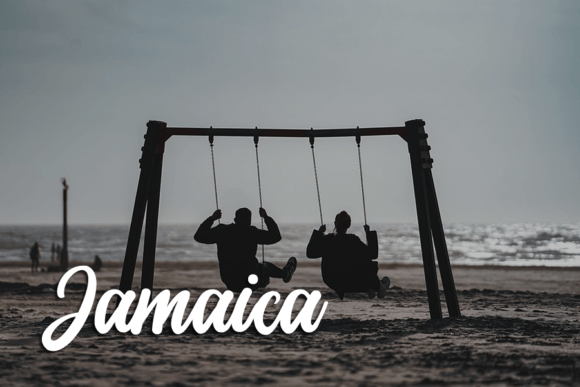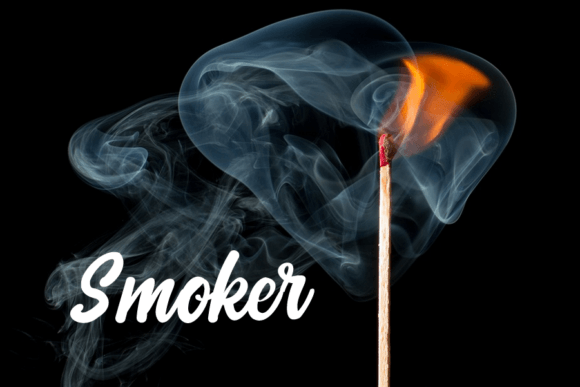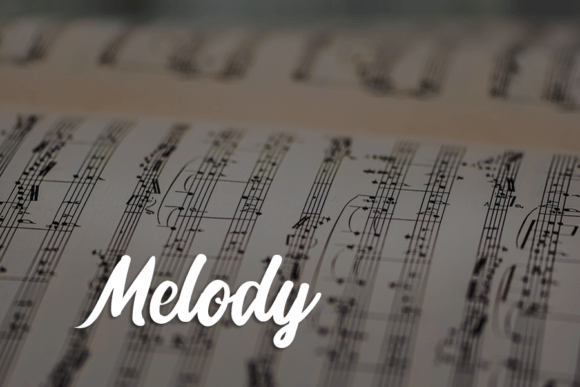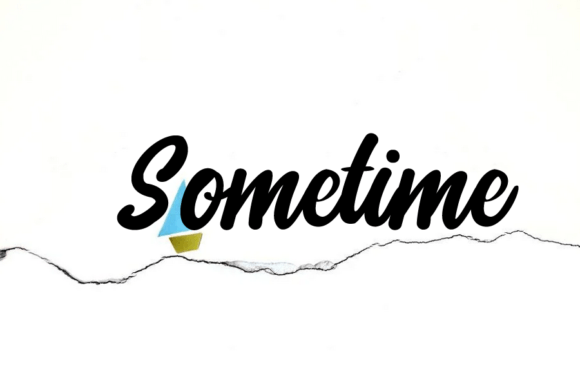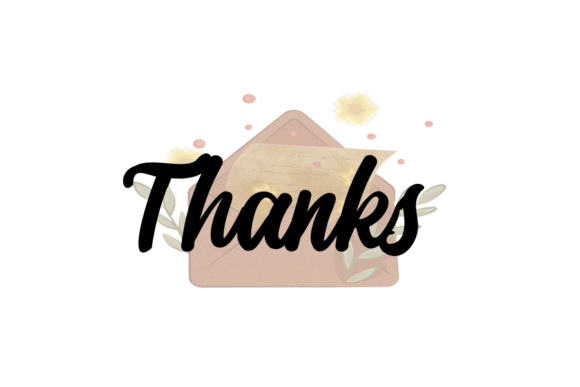
Jeremy Font
Jeremy Handwritten Font – Simple and Friendly Typeface
The Jeremy Handwritten Font is a clean and approachable typeface created to bring warmth and charm to your designs. With its natural handwritten flow, it provides a casual yet stylish look that works across both digital and print projects. Whether you are crafting greeting cards, invitations, or social media content, this font will give your work a personal and engaging feel.
A Handwritten Font with Casual Style
The Jeremy Handwritten Font combines smooth, friendly strokes with balanced proportions. Its clean design makes it easy to read while keeping the playful personality of handwriting. Because of this, it is ideal for creative projects where both clarity and style are important.
Perfect for Greeting Cards and Crafts
One of the strongest uses for the Jeremy Handwritten Font is in greeting cards, thank-you notes, and handmade crafts. Its simplicity ensures messages feel heartfelt, while its casual style makes designs look fun and inviting. Designers also enjoy using it for posters and inspirational quotes.
Versatility for Creative Projects
The Jeremy Handwritten Font adapts beautifully to multiple uses, from branding and product packaging to digital graphics and website headers. Its approachable style ensures it fits well in both casual personal work and professional design projects.
Why Designers Love Jeremy Font
The Jeremy Handwritten Font is loved by designers because it balances style with usability. It looks simple enough for everyday projects but stylish enough to enhance logos, labels, and digital content. Its friendliness makes it a dependable addition to any font library.